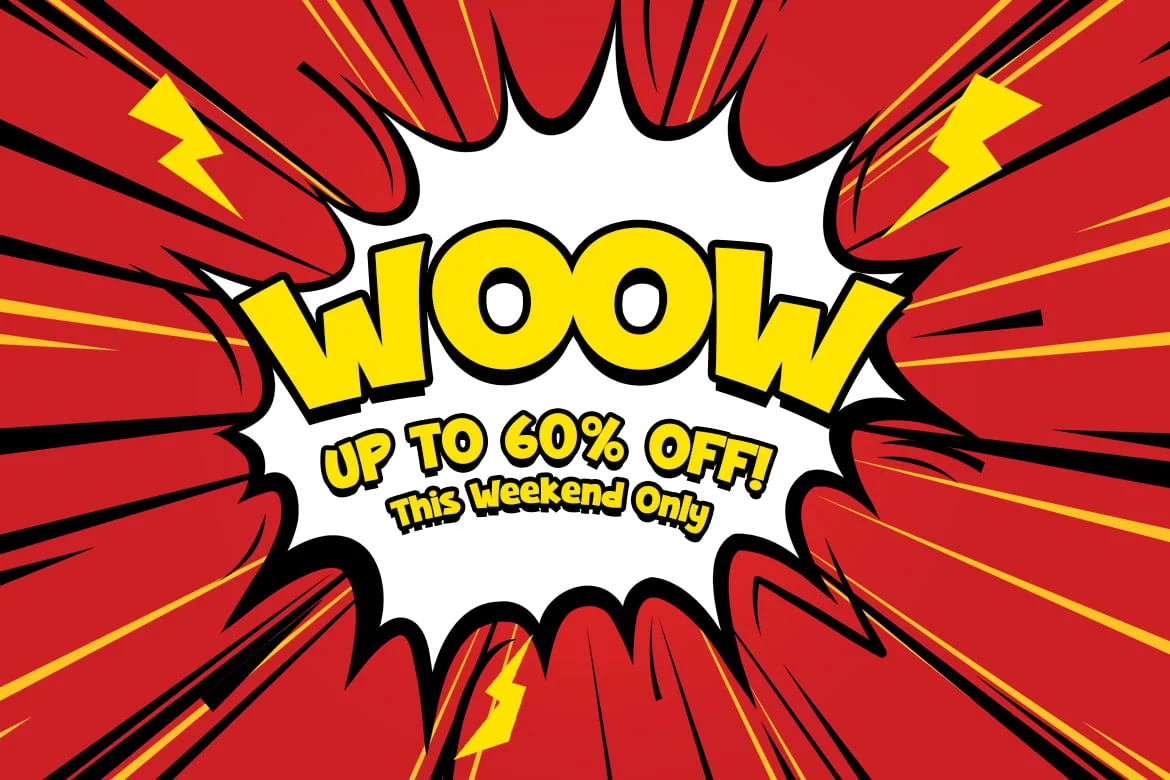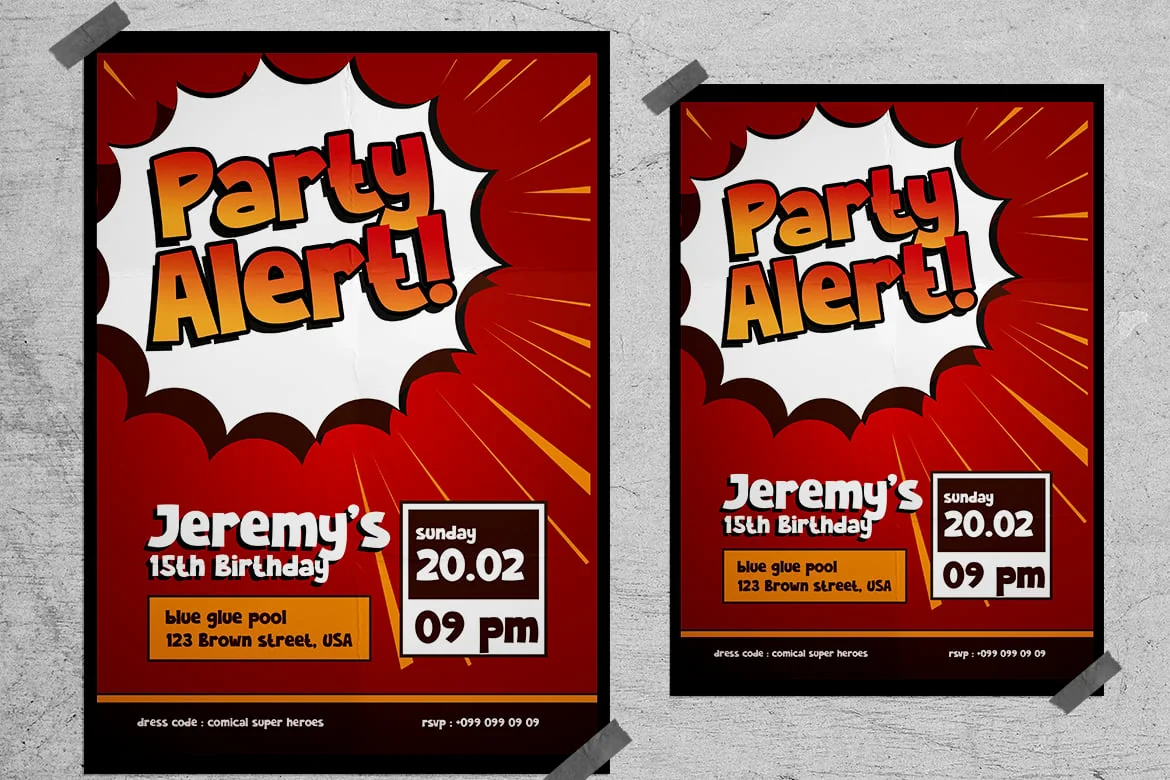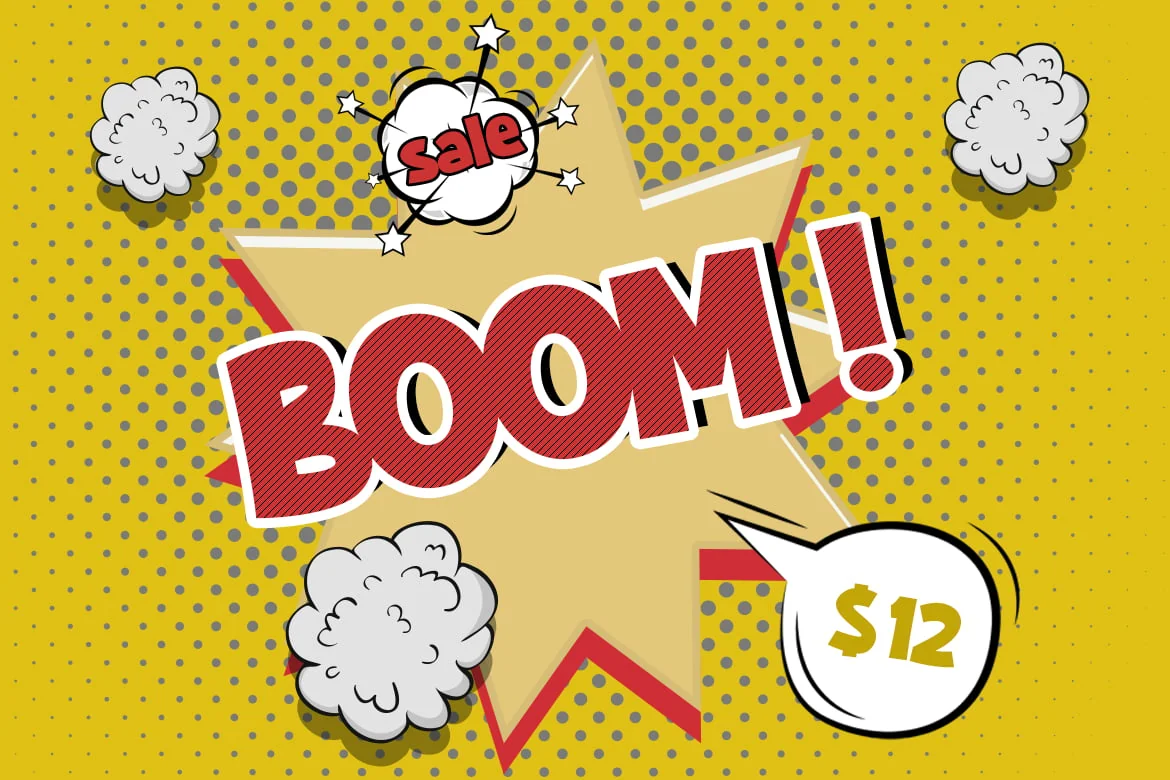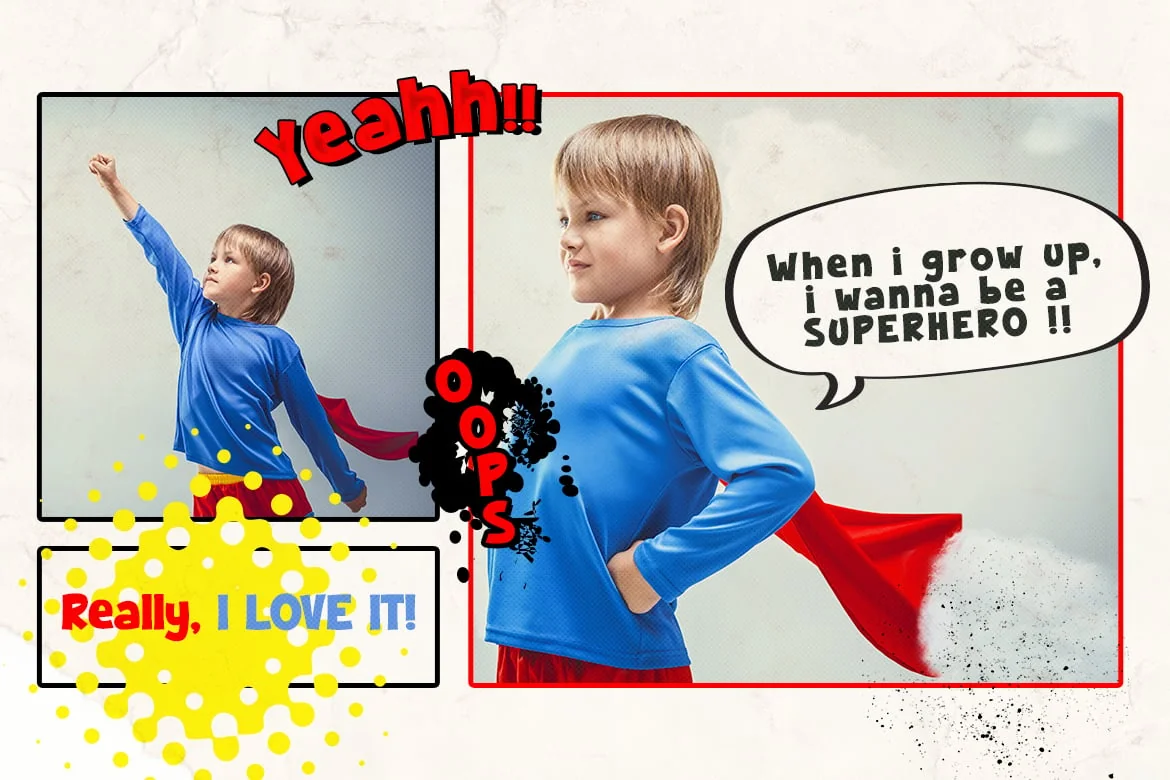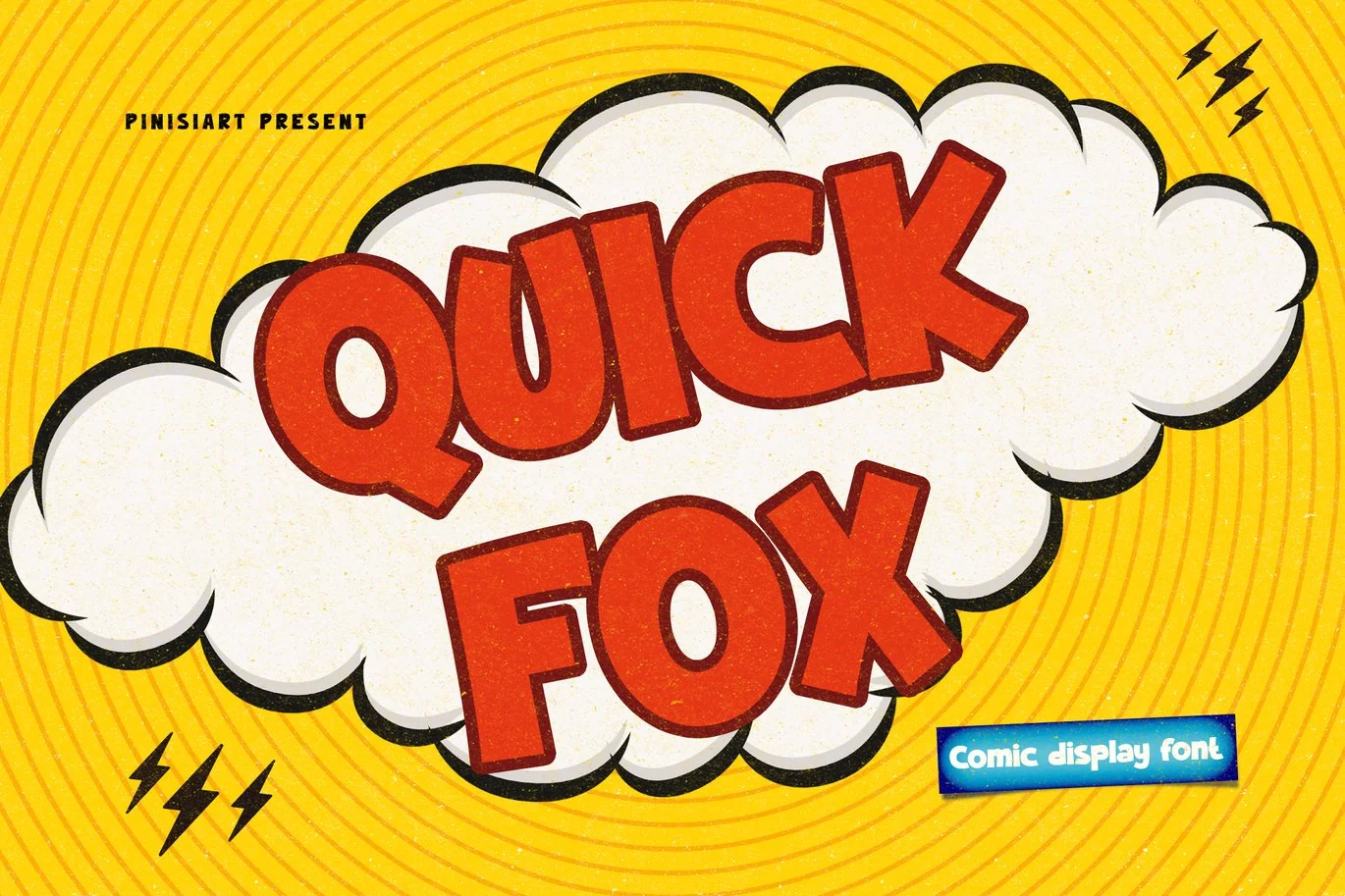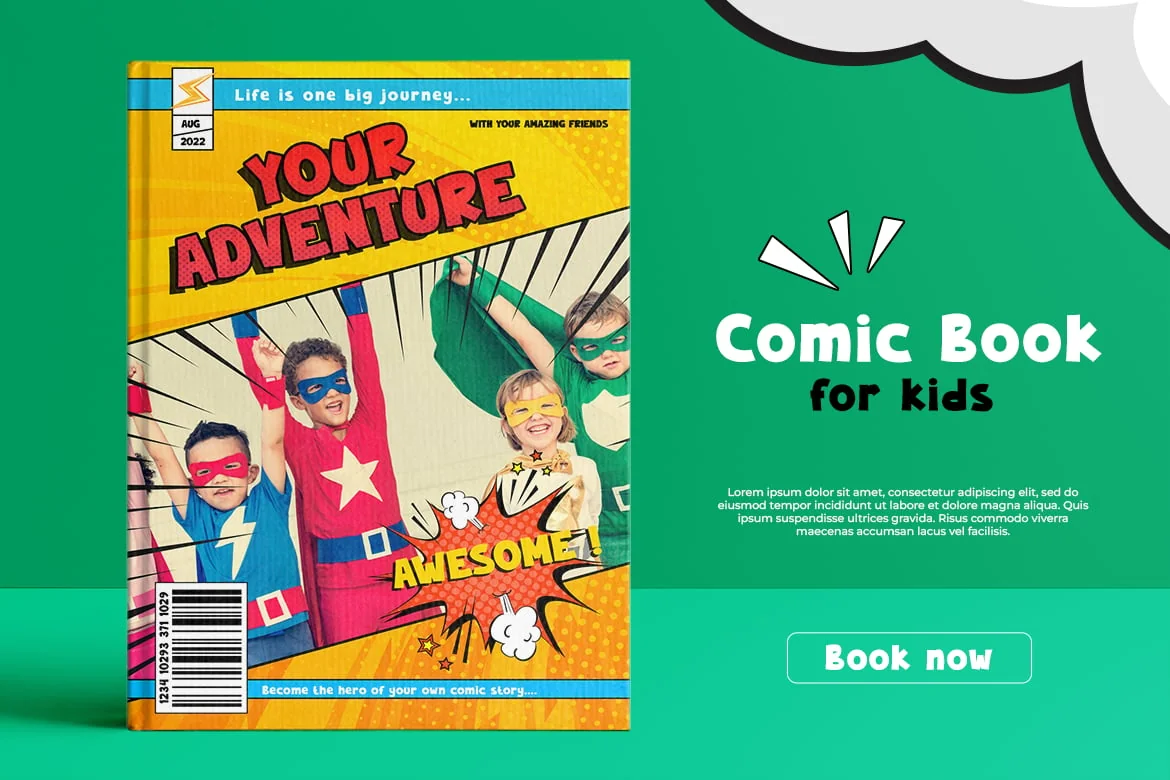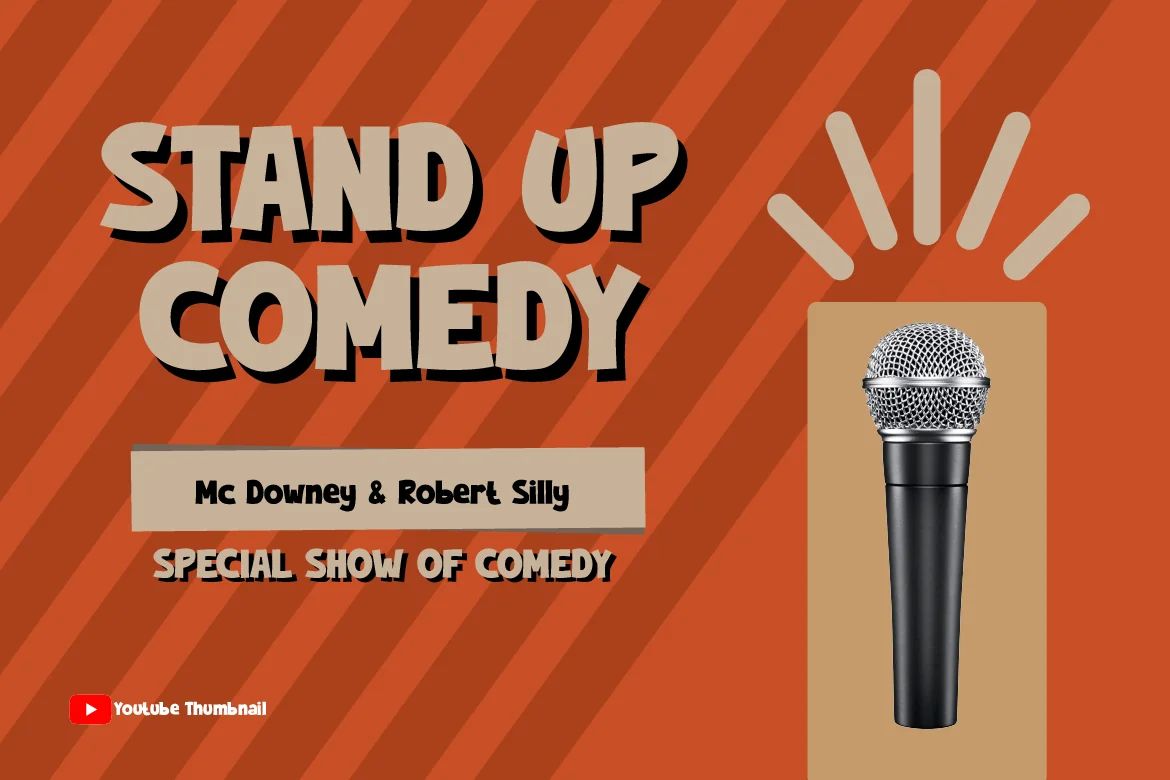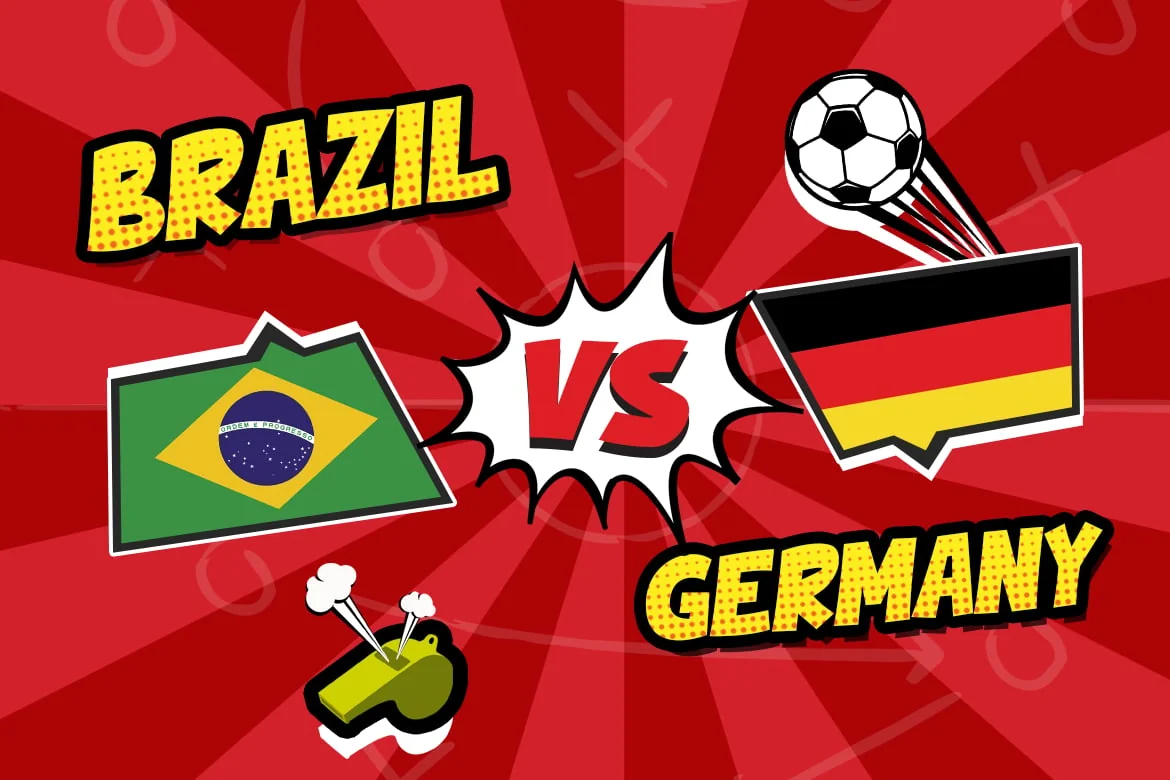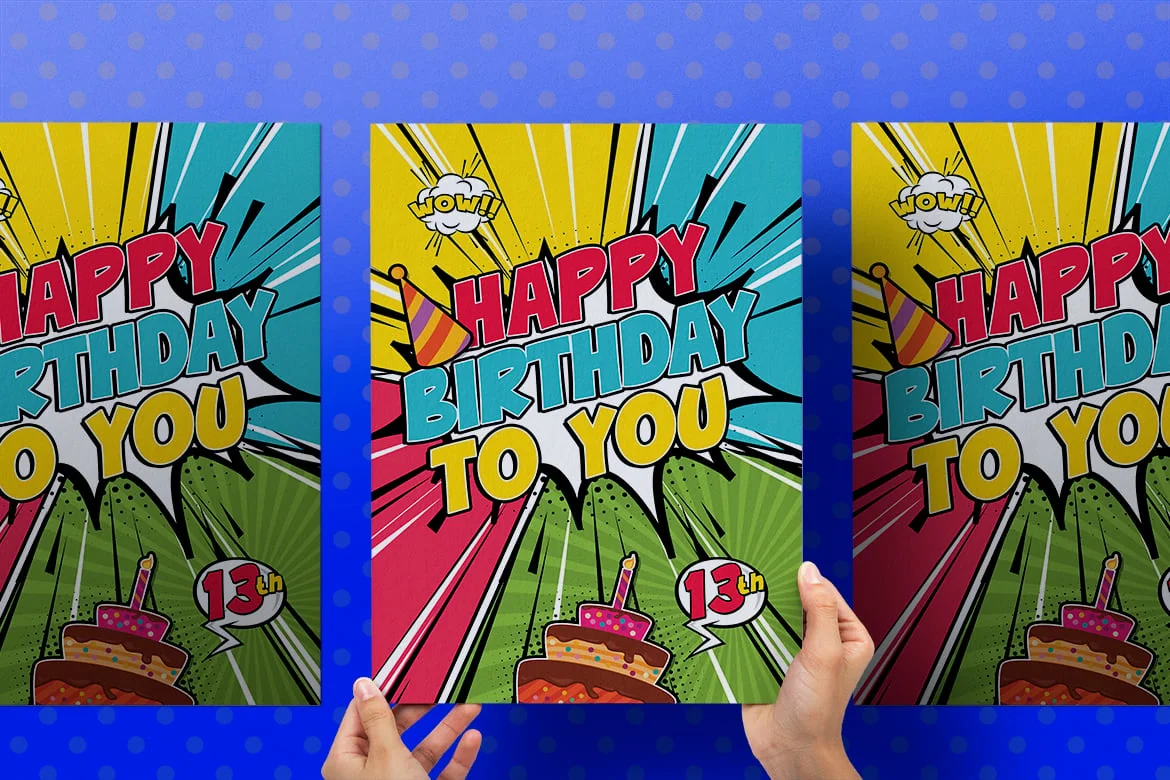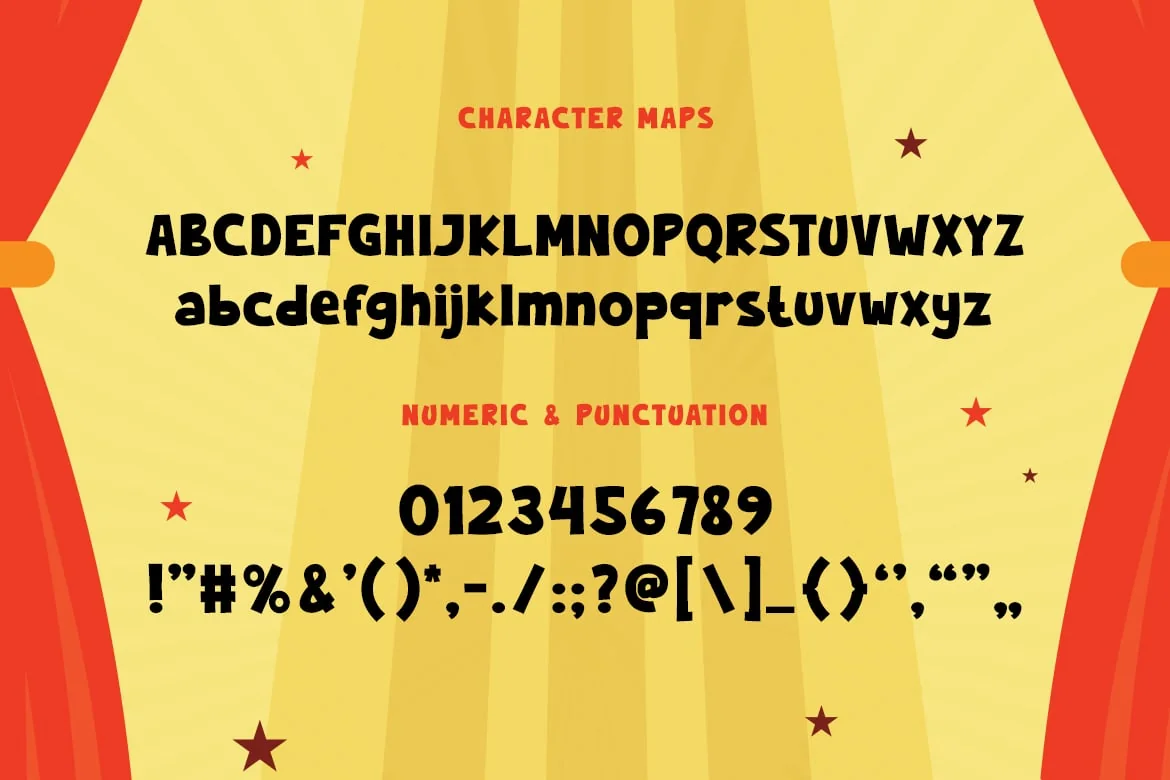
Quick Fox – Comic Display Font
You want attention? YOU GOT IT !
Everything that is written with QUICK FOX will get instantly recognizable and grabbing readers attentions.
Suit perfect for comic style books market, online games, classic/ retro event posters, school supplies font, posters, movie titles, youtube covers, youtube thumbnails, social media page covers, and so on…